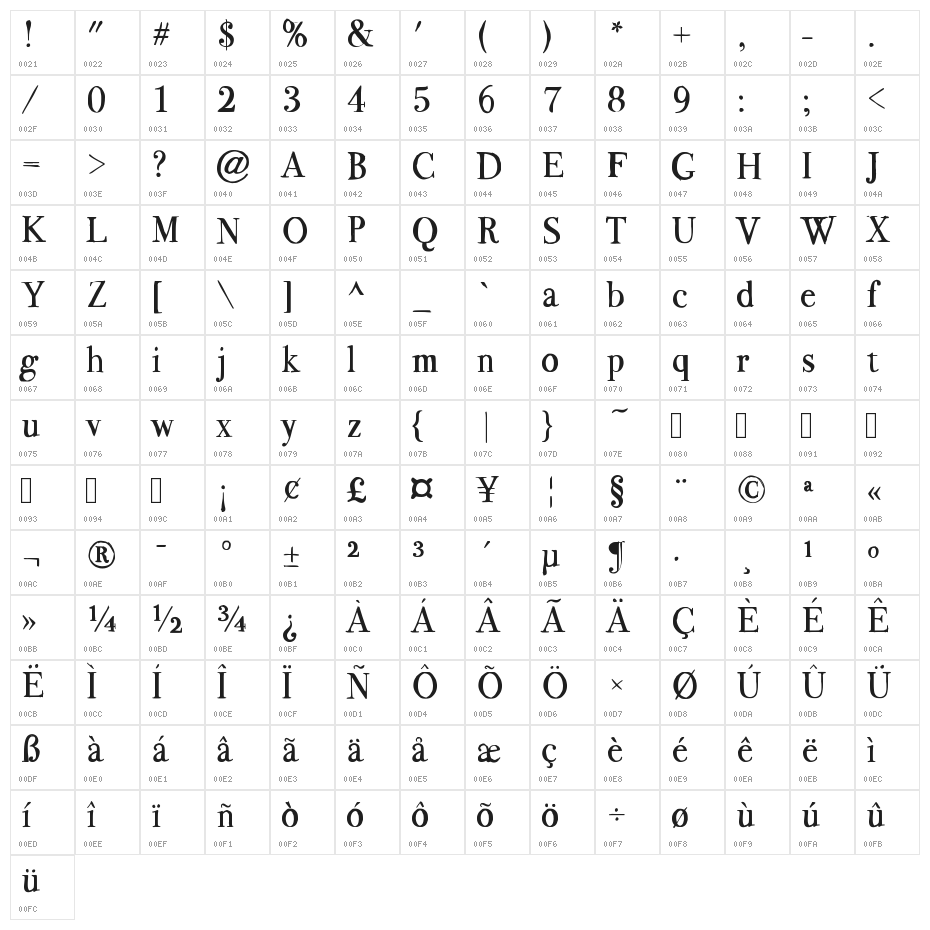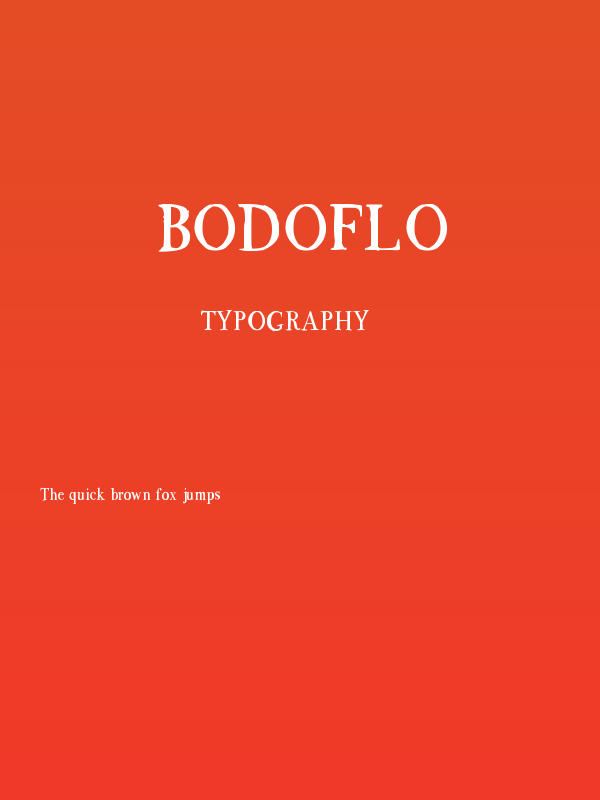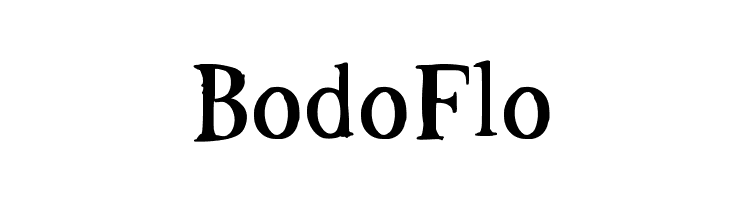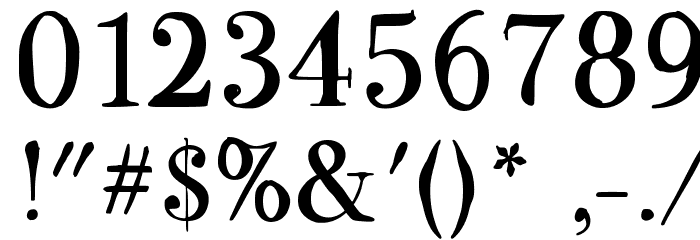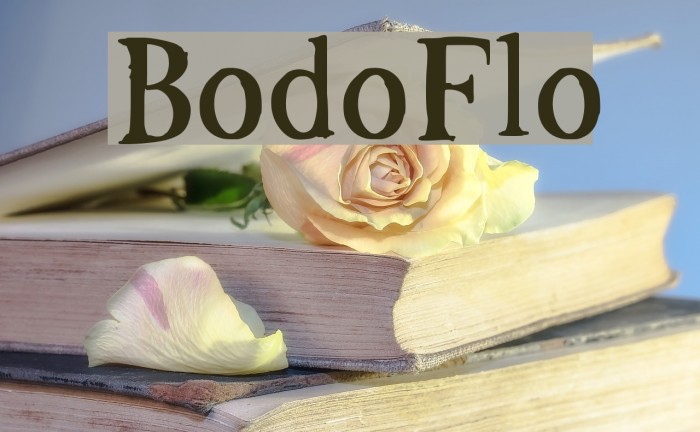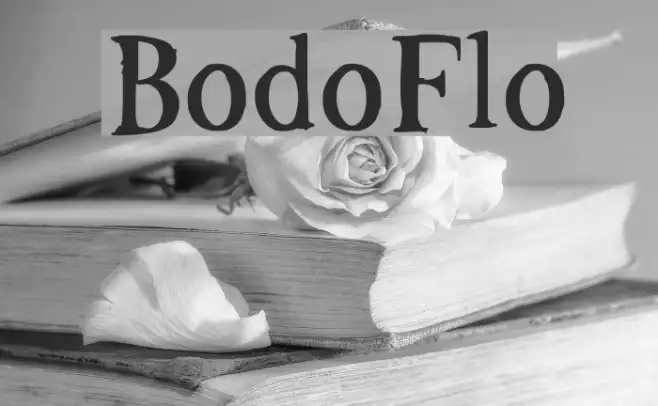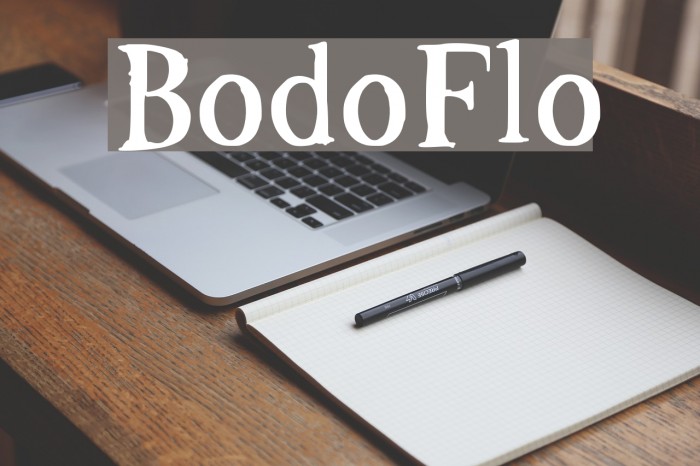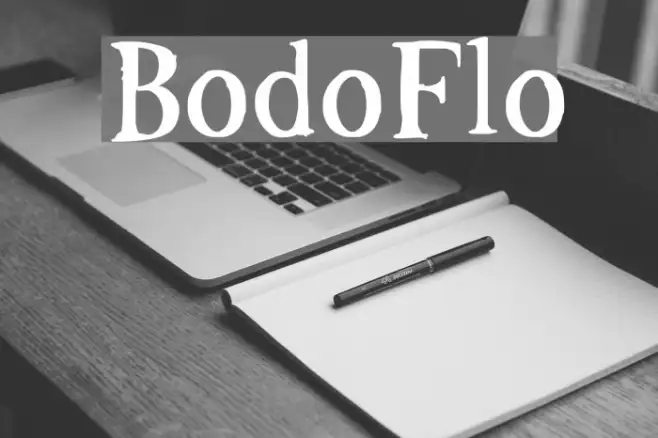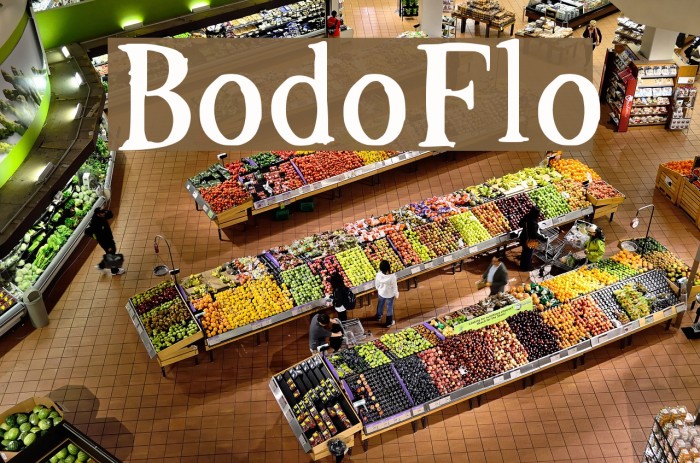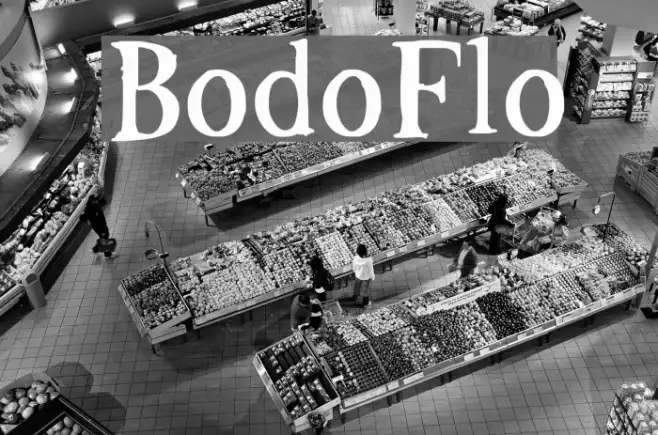
BodoFlo Font
BodoFlo Description
This font exhibits a classic serif style with pronounced, elegant strokes and a slightly vintage feel. The uppercase letters are bold and commanding, while the lowercase letters maintain a consistent flow with subtle variations in stroke width. The numerals are distinct and clear, making them easily readable. Special characters are well-integrated, maintaining the overall aesthetic of the font. The serifs are sharp and defined, adding a touch of sophistication. This font is versatile, suitable for both formal and creative projects, offering a timeless appeal.